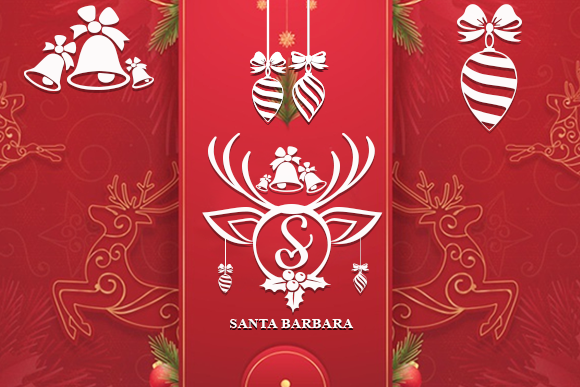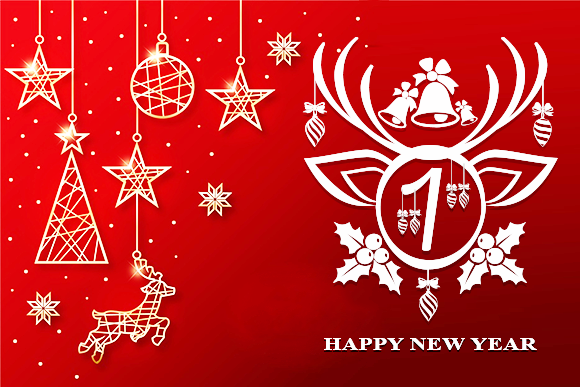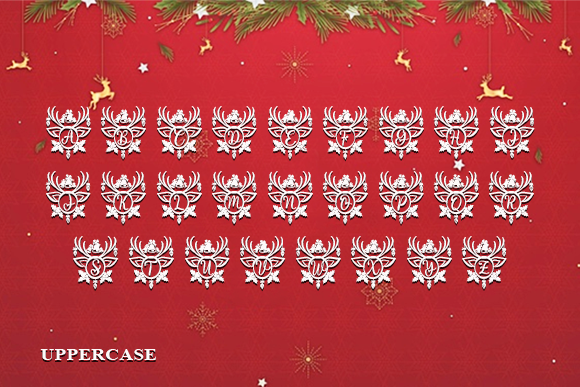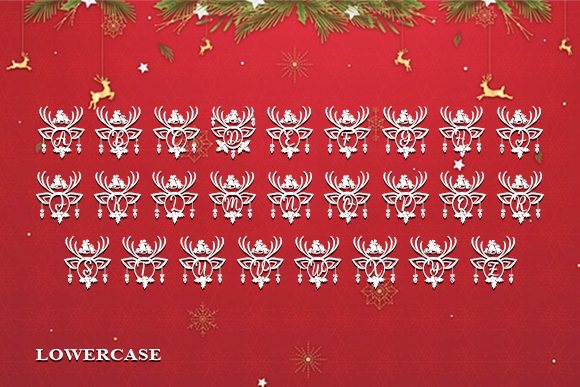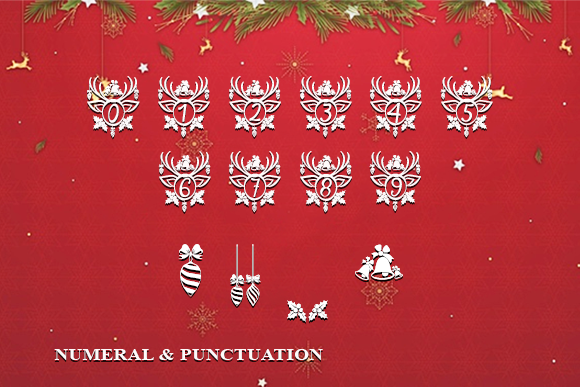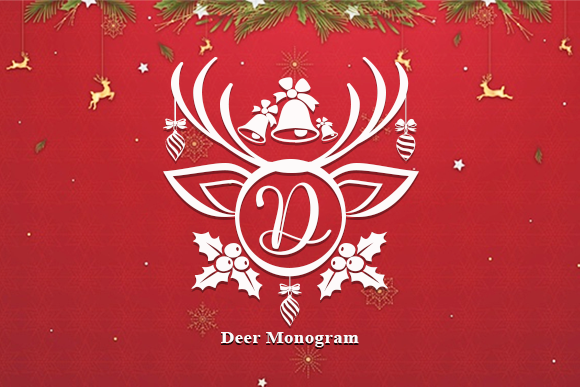
Introducing Deer Monogram Font: A Sweet Christmas Holiday-Inspired Decorative Font
Are you looking for a font that captures the essence of the Christmas holiday season? Do you want to add a touch of elegance and sophistication to your designs, while still conveying a sense of playfulness and whimsy? Look no further than the Deer Monogram Font, a beautiful and versatile decorative font that’s perfect for creating stunning wedding invitations, stationery art, social media posts, and greeting cards.
A Font that Embodies the Spirit of Christmas
Deer Monogram Font is a Christmas holiday-inspired decorative font that’s designed to evoke the feeling of a winter wonderland. With its intricate details and authentic feel, this font is sure to transport you and your audience to a magical world of snowflakes, twinkling lights, and cozy warmth. Whether you’re a designer, crafter, or simply someone who loves the holiday season, Deer Monogram Font is the perfect tool to help you create beautiful and festive designs.
Authentic Feel and Versatility
One of the standout features of Deer Monogram Font is its authentic feel. This font is designed to look like it was hand-crafted with love and care, with intricate details and a charming, whimsical quality that’s hard to find in digital fonts. At the same time, Deer Monogram Font is incredibly versatile, making it suitable for a wide range of design projects, from wedding invitations and stationery art to social media posts and greeting cards.
Perfect for Wedding Invitations and Stationery Art
Deer Monogram Font is a dream come true for anyone looking to create beautiful wedding invitations and stationery art. With its elegant, cursive script and intricate details, this font is perfect for adding a touch of sophistication and romance to your designs. Whether you’re a wedding planner, stationery designer, or simply someone who loves to create beautiful paper goods, Deer Monogram Font is a must-have in your design toolkit.
Eye-Catching Social Media Posts and Greeting Cards
But Deer Monogram Font isn’t just limited to print design. This font is also perfect for creating eye-catching social media posts and greeting cards that are sure to stand out in a crowded online world. With its bold, playful script and charming details, Deer Monogram Font is the perfect way to add a touch of personality and whimsy to your digital designs.
Why Choose Deer Monogram Font?
So why choose Deer Monogram Font over other decorative fonts on the market? Here are just a few reasons why this font stands out:
- Unique and Authentic Design: Deer Monogram Font has a one-of-a-kind design that’s sure to set your designs apart from the crowd.
- Highly Versatile: This font can be used for a wide range of design projects, from wedding invitations and stationery art to social media posts and greeting cards.
- Elegant and Whimsical: Deer Monogram Font combines elegance and whimsy in a way that’s hard to find in digital fonts.
Get Creative with Deer Monogram Font
Now that you’ve learned more about Deer Monogram Font, it’s time to get creative! Here are a few ideas to get you started:
- Create a beautiful wedding invitation with Deer Monogram Font and a few strategically-placed snowflakes.
- Design a set of festive holiday greeting cards with Deer Monogram Font and some colorful illustrations.
- Use Deer Monogram Font to create a stunning piece of stationery art that features a winter wonderland scene.
- Make a bold and eye-catching social media post with Deer Monogram Font and a few fun, animated graphics.
Deer Monogram Font is a sweet Christmas holiday-inspired decorative font that’s perfect for designers and crafters who want to add a touch of elegance and whimsy to their designs. With its authentic feel, versatility, and charming details, this font is sure to become a favorite in your design toolkit. So why wait? Download Deer Monogram Font today and start creating beautiful, festive designs that will delight your audience and leave a lasting impression.